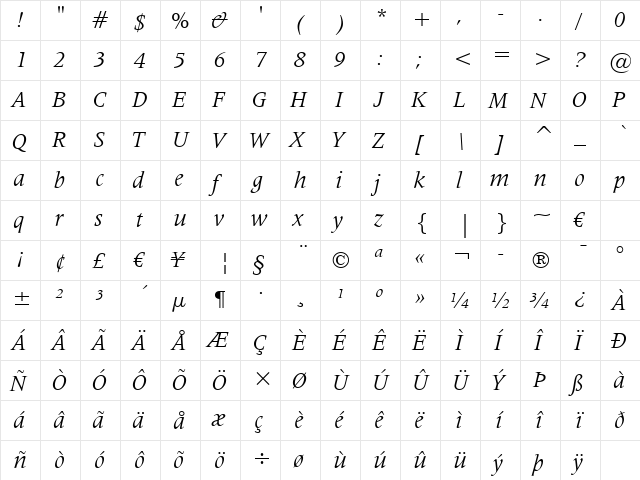
Latin725 BT Italic
Design Context for Latin725 BT Typeface
Latin725 BT takes a measured approach to typography — its balanced proportions and neutral character make it a reliable workhorse for both digital and print work. The slanted form adds forward momentum and visual energy.
Pro Tip: Try Latin725 BT for annotation and caption copy alongside an upright companion — the contrast in angle creates a dynamic but ordered typographic system.